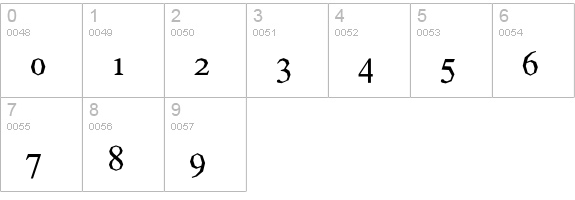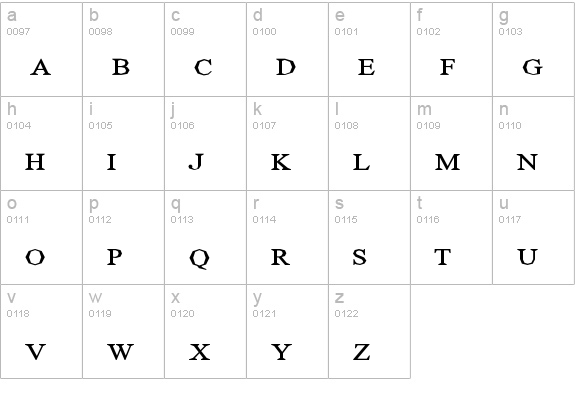
Tim-Expert Font Details
Introducing Tim-Expert font, a beautifully crafted typeface that combines elegance with a touch of sophistication. With its clean and modern design, this font is perfect for a wide range of creative projects, from branding and logo design to advertising and packaging. One of the standout features of Tim-Expert font is its versatility. It can be used for both headings and body text, making it a truly versatile choice for any design project. Its carefully designed letterforms ensure legibility and readability, even at smaller sizes. But what truly sets Tim-Expert font apart is its availability - it's completely free! Yes, you heard that right. You can freely download this font at FontsMarket.com, making it accessible to designers, students, and anyone looking to add a touch of professionalism to their work without breaking the bank. Whether you're a seasoned designer or just starting out, Tim-Expert font offers a seamless and hassle-free experience. Its wide range of glyphs and characters, including ligatures and alternates, provides endless possibilities for creative expression. From bold and impactful to delicate and refined, this font has it all. So why wait? Enhance your designs with the timeless elegance of Tim-Expert font. Download it for free today at FontsMarket.com and elevate your projects to new heights. With its exquisite design and accessibility, this font is sure to become a staple in your creative toolkit.